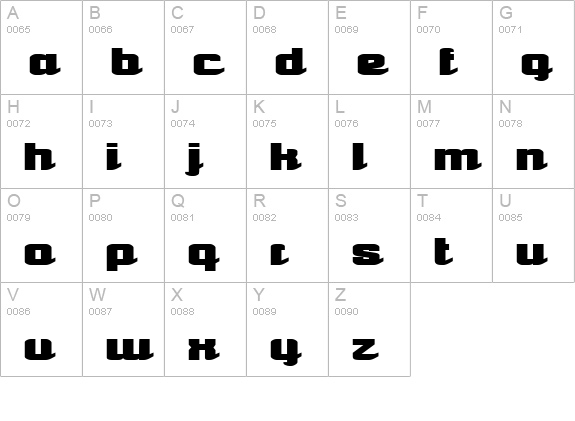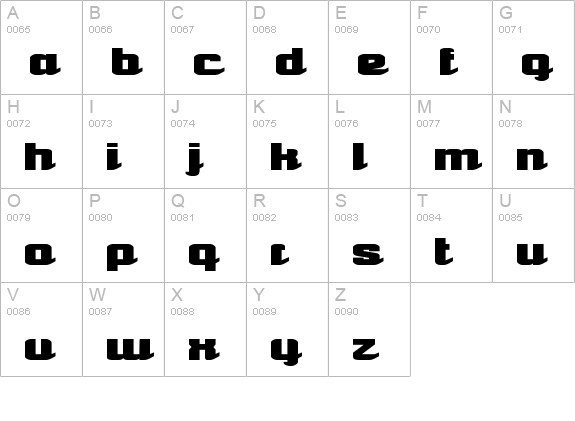
SnoCone Font Details
Introducing SnoCone, a delightfully vibrant and playful font that will add a touch of whimsy to any design project. This font captures the essence of carefree summer days, with its rounded edges and cheerful curves. Every letter is like a refreshing bite into a delicious snocone, bringing a sense of joy and excitement to your typography. SnoCone is not only visually appealing, but also incredibly versatile. Whether you're designing a poster for a summer festival, creating a playful logo, or adding a fun twist to a social media post, this font will instantly catch the eye and convey a sense of lightheartedness. Best of all, SnoCone is free! Yes, you read that right. This delightful font is freely available to download at FontsMarket.com. It's the perfect opportunity to add a touch of summer fun to your designs without breaking the bank. So why wait? Get your hands on SnoCone today and let your creativity soar.